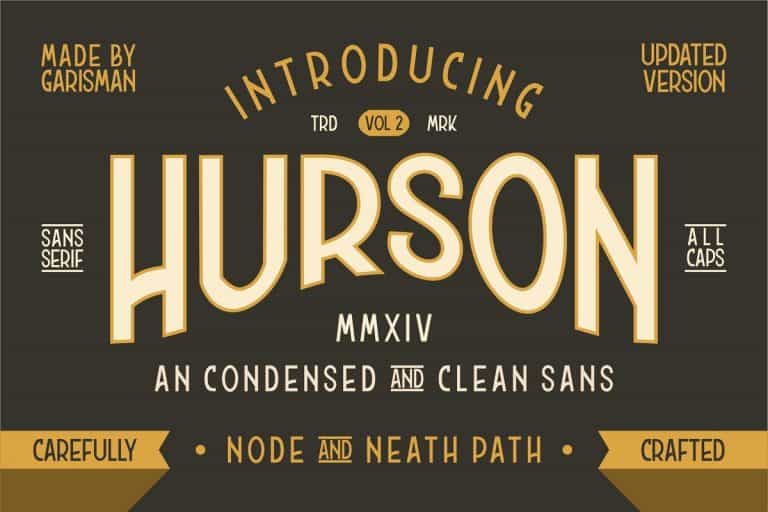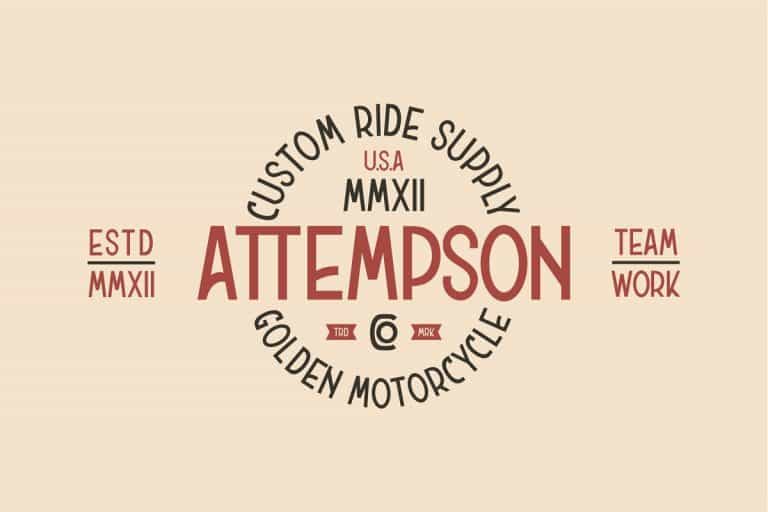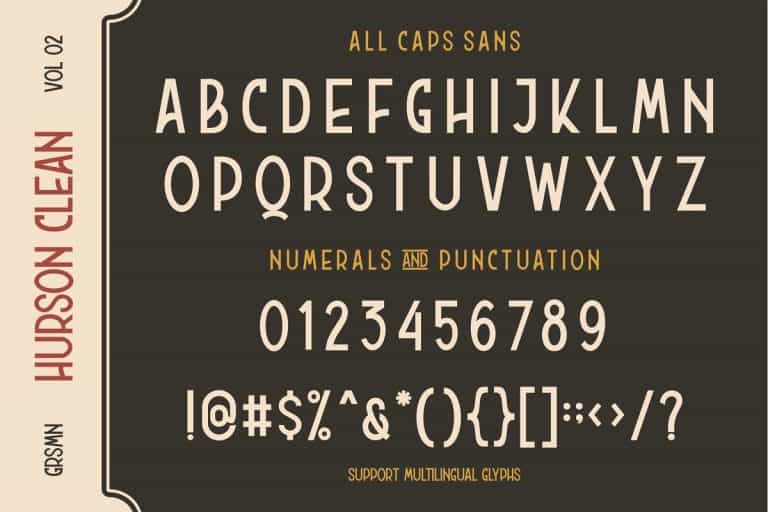
Thank you for reviewing the Hurson Clean Font. The modern type style that is fit for logos, film, video games, packaging and more!Hurson which was designed by Garisman Std. Hurson includes two font styles, Hurson Rough (the first version) and Hurson Clean (the latest one). This font has a vintage, classic, old hand made look.